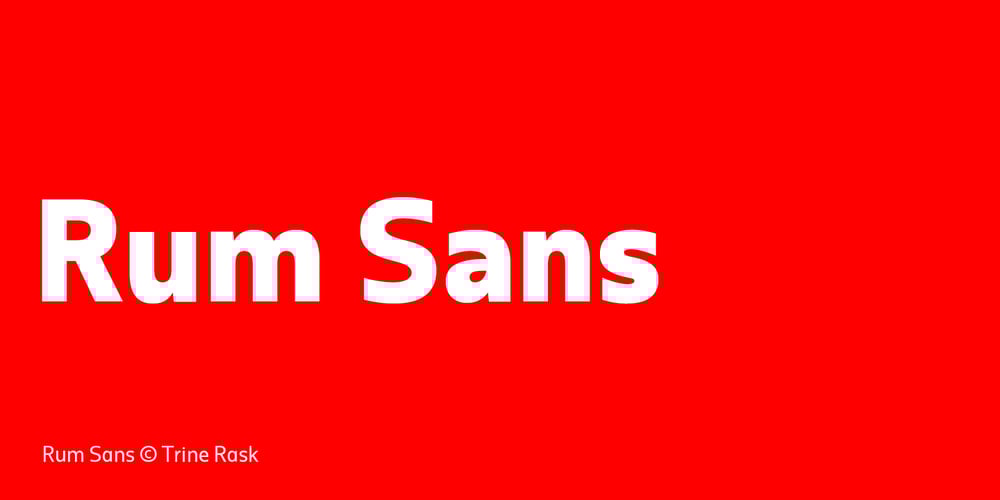
Rum Sans Font Family was designed by Trine Rask and published by Trine Rask. Rum Sans contains 11 styles and family package options. Rum Sans is designed inside out based on modular counters.Rum Sans is a text & display family suitable for any purpose, any media, any size. A humanistic modular sans serif in five weights containing small caps, italic, swashes, alternative characters, old style, lining, tabular & proportional figures. Design date: 2001-2014The complete family consists of Sans Serif & Serif in both sharp and soft version + the display fonts Rum Plakat & Rum Silhouette.